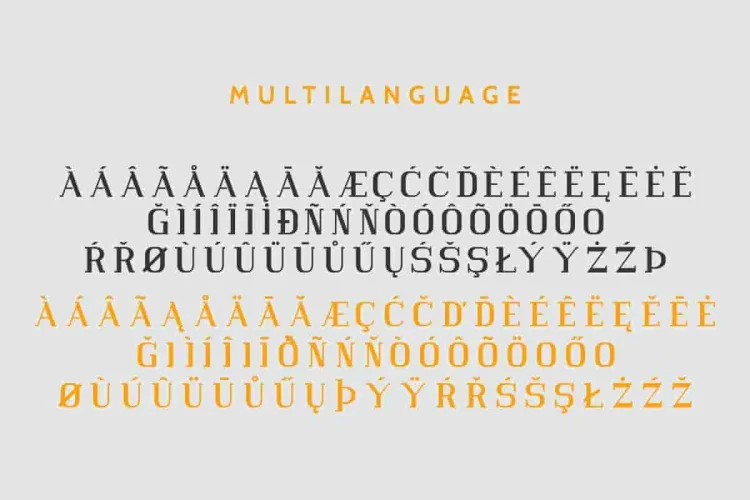
Vlorens Flower Stylish Fonts Duo
We’re excited to introduce our newest font : Vlorens Flower ! Vlorens Flower is a new font family that includes Reguler Serif Display, Stencil, Script and Outline styles, It’s powerful and elegant—combining elegance and charm in one cohesive package. Whether you’re a designer, brand strategist, or small business owner, this font duo helps elevate your visual identity effortlessly.
What makes Vlorens Flower truly stand out? 🤔
First off, it’s not just a font – it’s a complete type family consisting of four distinctive styles that harmonize beautifully. Let’s break it down:
1. REGULAR (Serif Display) :This style is modern and refined. With strong character and sharp serifs, it’s ideal for logos, magazine titles, and editorials.
2. OUTLINE : The Outline version offers a contemporary twist, giving your designs depth and contrast. It’s perfect for branding projects or bold headings that require subtle sophistication.
3. STENCIL : Add a touch of edginess with the Stencil style, which features strategic breaks in the letterforms. This version creates a bold industrial look, while still staying elegant and readable. It’s also great for packaging, posters, and digital interfaces.
4. SCRIPT : Last but not least, we have the Script – a handwritten cursive style that’s playful yet refined. It pairs beautifully with the serif fonts. Use it for taglines, quotes, or any text that needs a personal touch.
Each style works beautifully on its own or in combination, giving you maximum design flexibility in your design workflow.
Moreover, Vlorens Flower supports multilingual characters, ensuring your message can be shared across borders without limitations. From English to European accents – you’re covered.